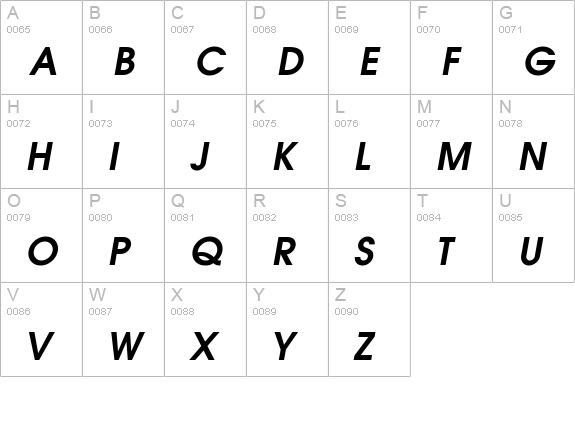
Moderne Demi Oblique is a sub-bold, structured, italic variant in the Moderne typeface family \xE2\x80\x94 well suited to sub-headlines and emphasised passages.
Moderne Demi Oblique is a sleek and sophisticated typeface that exudes a sense of modernity and elegance. With its clean lines and subtle slant, this font is perfect for adding a contemporary touch to any design project. The bold yet refined look of Moderne Demi Oblique makes it ideal for headlines, branding, and other display purposes. This versatile font is free to download at FontsMarket.com, making it accessible to designers and creatives looking to elevate their work with a touch of sophistication. Whether you're designing a website, poster, or logo, Moderne Demi Oblique is sure to make a statement and leave a lasting impression on viewers. Add a touch of modern flair to your designs with this stylish and dynamic font.